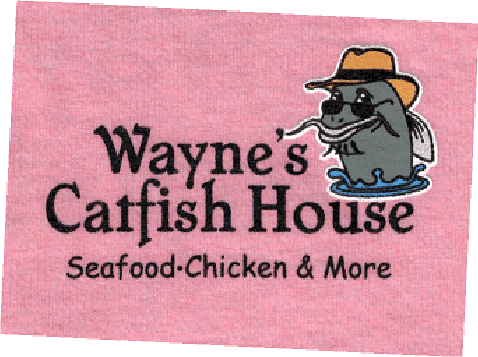
Can anyone help identify both fonts for this. I havent' been able to find them in my stuff.
Ima say Cheboygan -- chesterfield looks distressed on my system
edit: nevermind i was looking at chestfield antique rofl - but yeah, aka cheboygan